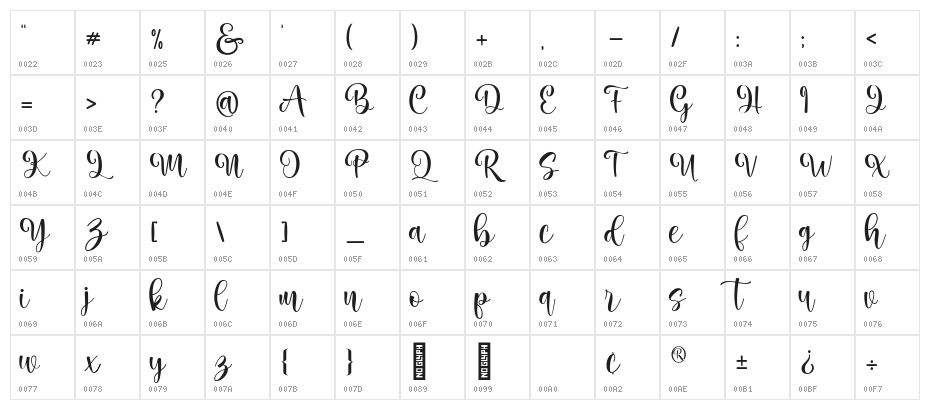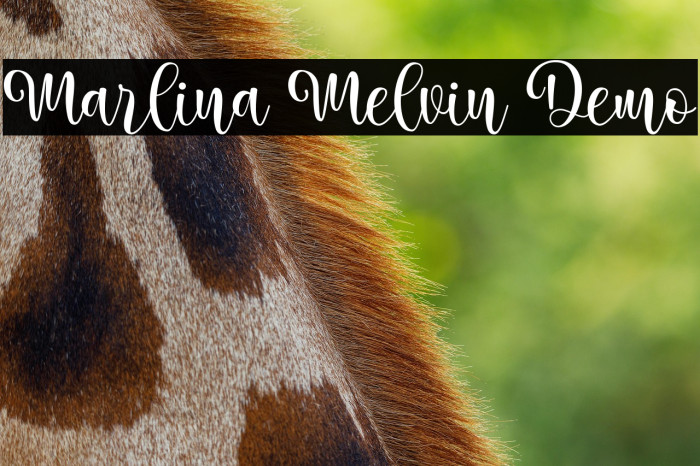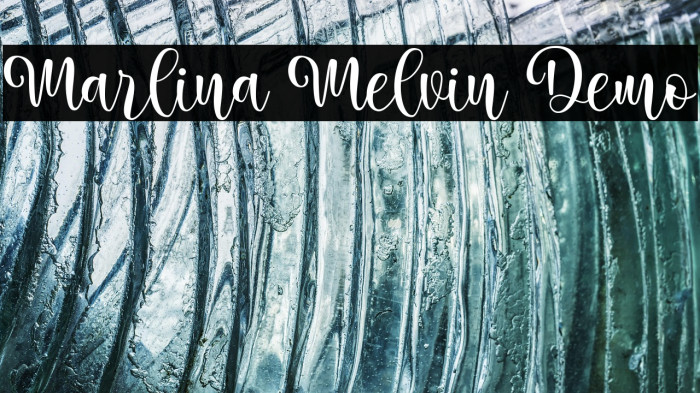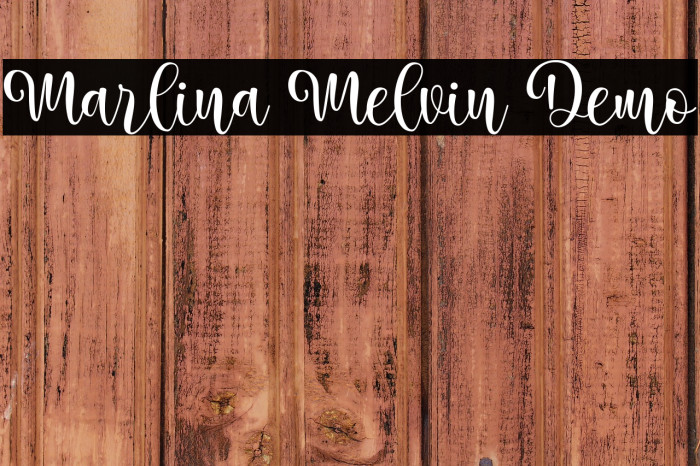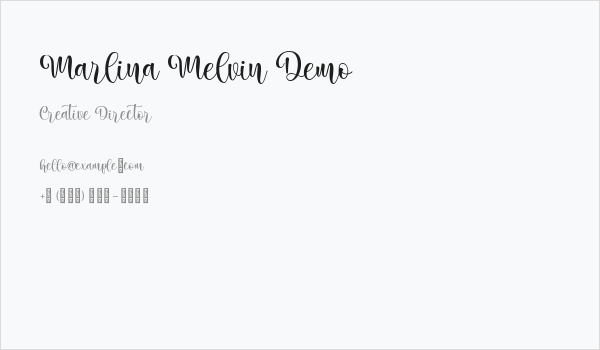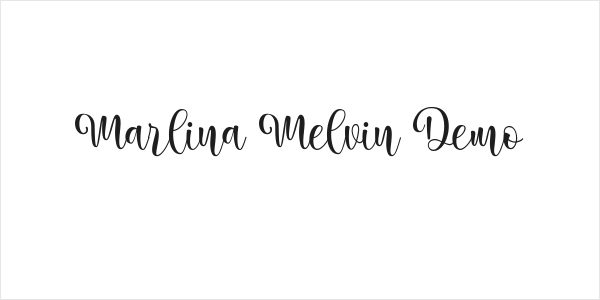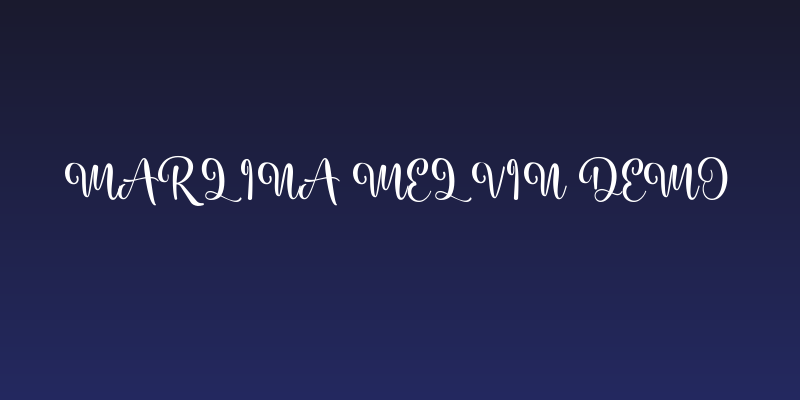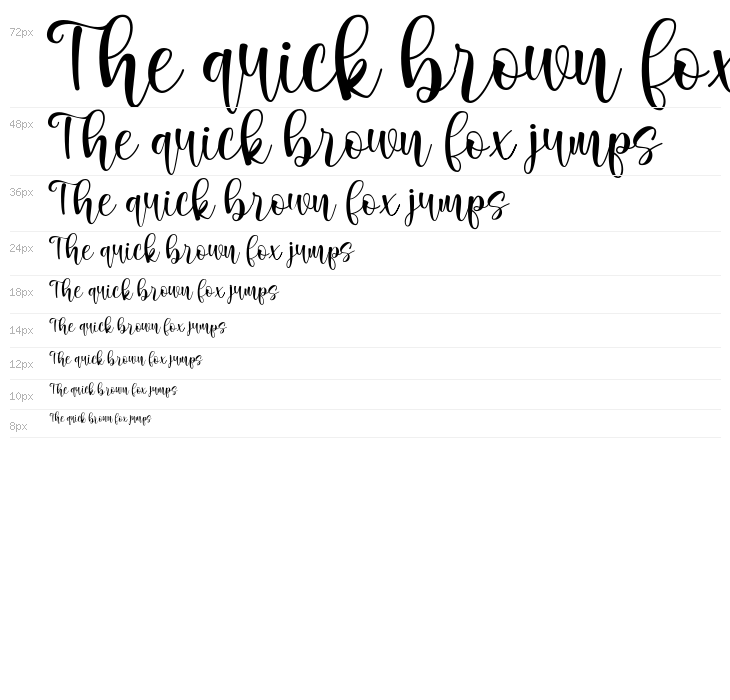
Marlina Melvin Demo Font
Marlina Melvin Demo Description
This font features an elegant and flowing script style, characterized by its smooth, cursive letters that connect seamlessly. The uppercase letters are ornate, with flourishes that add a touch of sophistication, while the lowercase letters maintain a consistent fluidity. The font has a modern calligraphic feel, making it suitable for projects that require a personal and artistic touch. The characters are well-balanced, with a harmonious blend of thick and thin strokes that create a dynamic visual appeal. The special characters and numbers are designed to complement the overall style, ensuring consistency throughout.